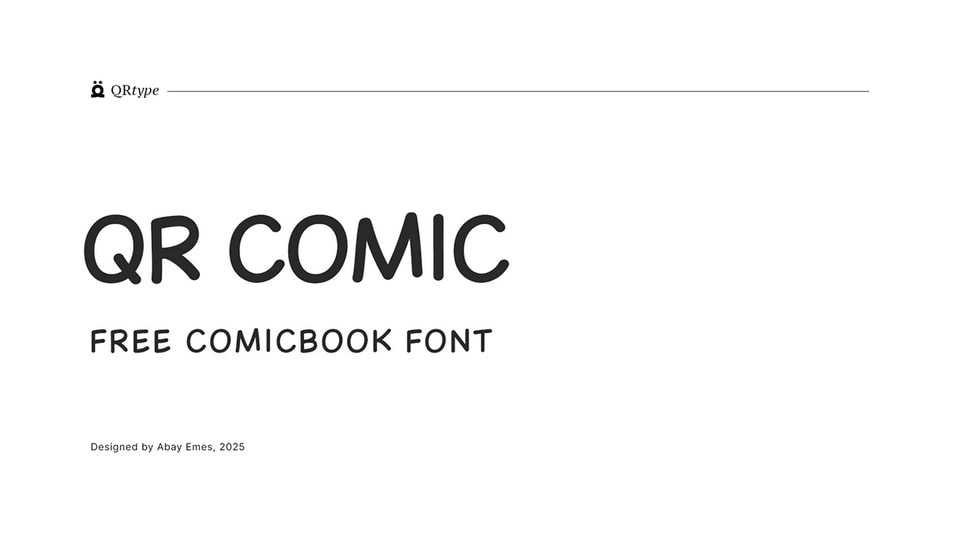
Download QR Comic font, a bold and expressive comic book typeface designed to capture the lively spirit of classic comic storytelling with its clean, rounded shapes and dynamic letterforms.